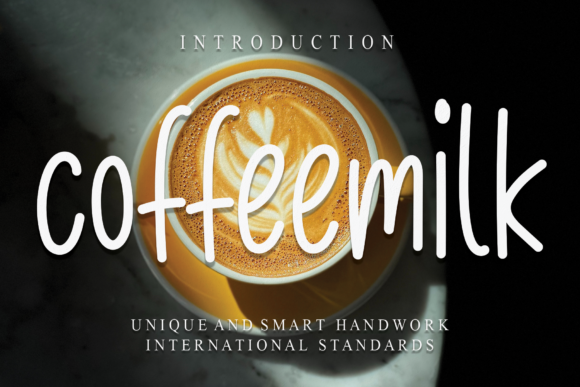
About Coffeemilk Font
Coffeemilk is a delightful and friendly handwritten font that adds a touch of sweetness and charm to your designs. With its natural and unique style, this font brings a warm and inviting feel to any project.
The casual and relaxed vibe of Coffeemilk makes it highly versatile and suitable for a wide range of designs. Whether you’re working on posters, greeting cards, logos, social media graphics, or any other creative project, this font adds a playful and approachable touch. Its handwritten appearance creates a personal and authentic feel, capturing the essence of creativity and individuality.
The beauty of Coffeemilk lies in its simplicity and naturalness. The letters have a genuine hand-drawn quality, with subtle variations in line weight and letterforms that give it an organic and authentic look. This makes the font feel warm and inviting, as if it was crafted with care and love.
The flexibility of Coffeemilk allows you to experiment and let your imagination run wild. Whether you’re designing for a coffee shop, a lifestyle brand, or a cozy blog, this font can adapt and enhance the overall aesthetic. Its friendly and approachable nature makes it an excellent choice for designs that aim to create a welcoming and comforting atmosphere.
Furthermore, Coffeemilk is versatile enough to be used in various contexts, from headlines and titles to body text and captions. Its legibility and readability ensure that your message is conveyed clearly and effectively, while still maintaining a distinct and memorable style.
In summary, Coffeemilk is a sweet and friendly handwritten font that adds a touch of natural charm to your designs. Its versatility and unique style make it suitable for a wide range of projects, allowing you to explore and unleash your creativity. So, let your imagination roam free and let Coffeemilk bring a delightful and inviting touch to your next design endeavor.